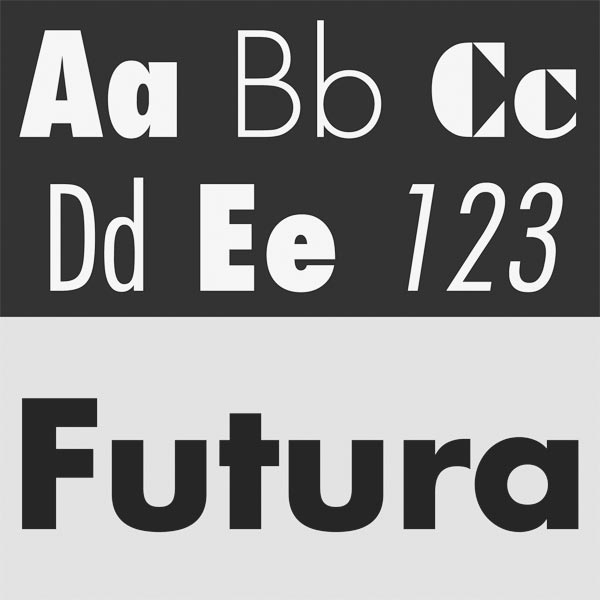
Futura Font 1001 Fonts
Web we have 8 free regular, futura fonts to offer for direct downloading · 1001 fonts is your favorite site for free fonts since 2001 With a variety of styles to choose from, you'll be sure to find the perfect font. Unlock your creativity with our selection of free futura, medium fonts. Ideal for design projects, giving your. Web download.
Ideal for design projects, giving your. With a variety of styles to choose from, you'll be sure to find the perfect font. Web we have 8 free regular, futura fonts to offer for direct downloading · 1001 fonts is your favorite site for free fonts since 2001 Unlock your creativity with our selection of free futura, medium fonts. Web download.
With a variety of styles to choose from, you'll be sure to find the perfect font. Unlock your creativity with our selection of free futura, medium fonts. Ideal for design projects, giving your. Web download stylish and timeless futura fonts for free! Web we have 8 free regular, futura fonts to offer for direct downloading · 1001 fonts is your.